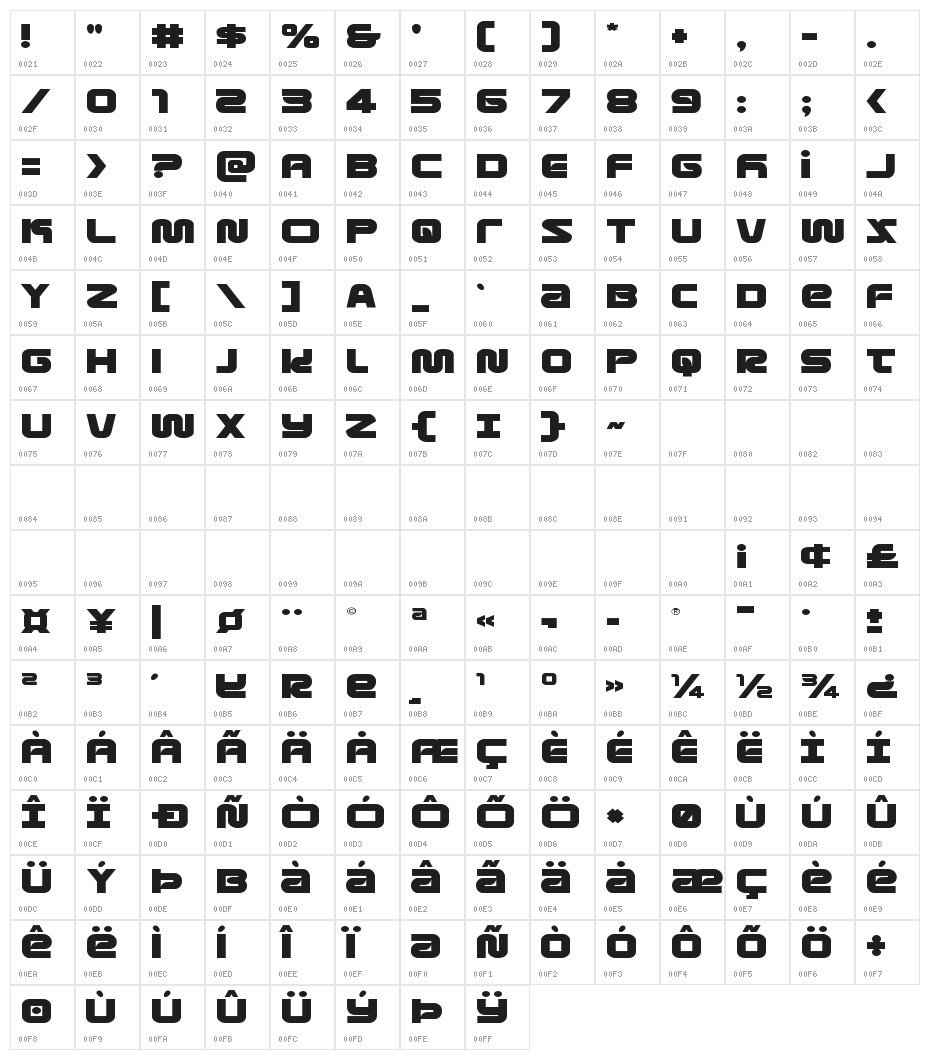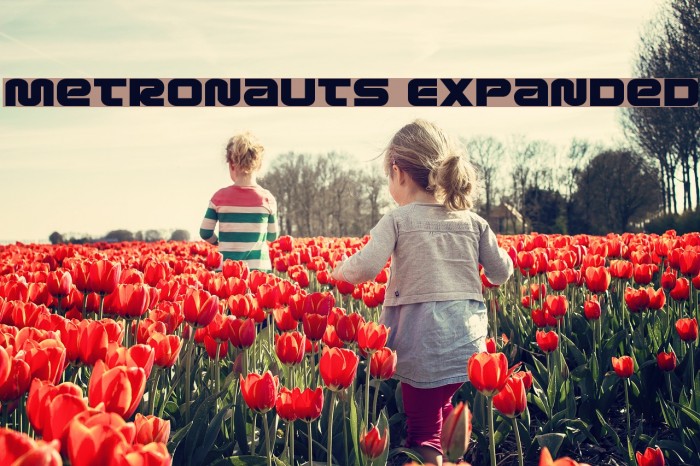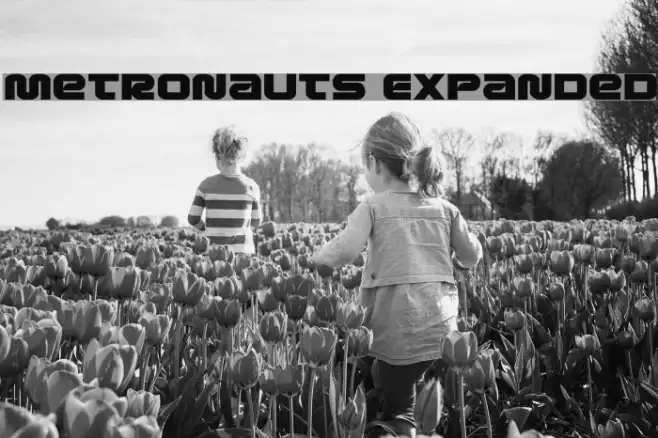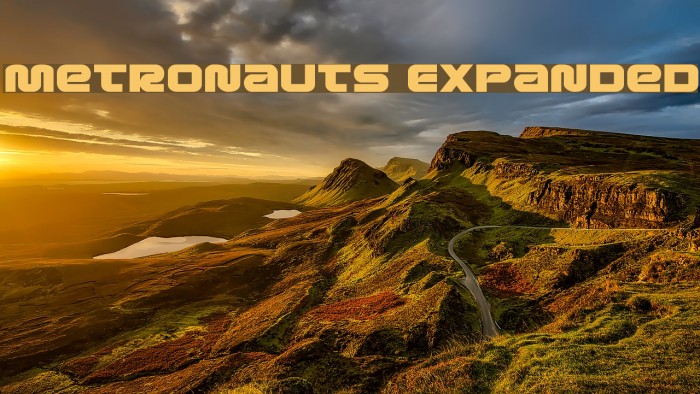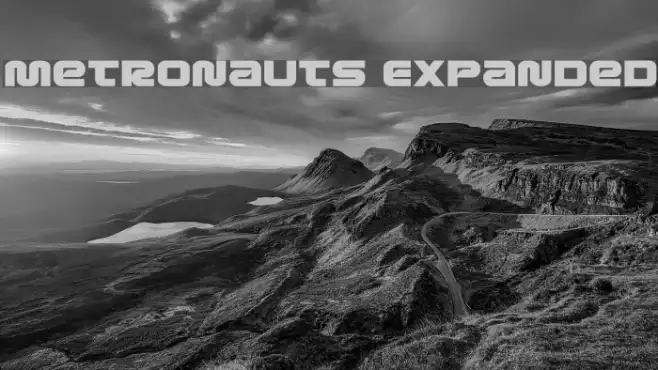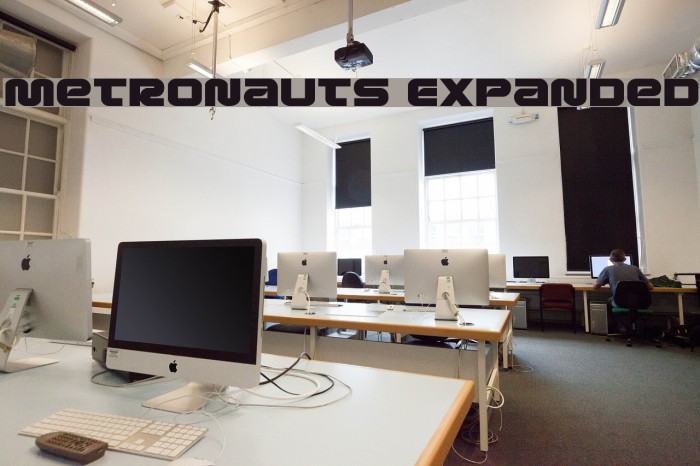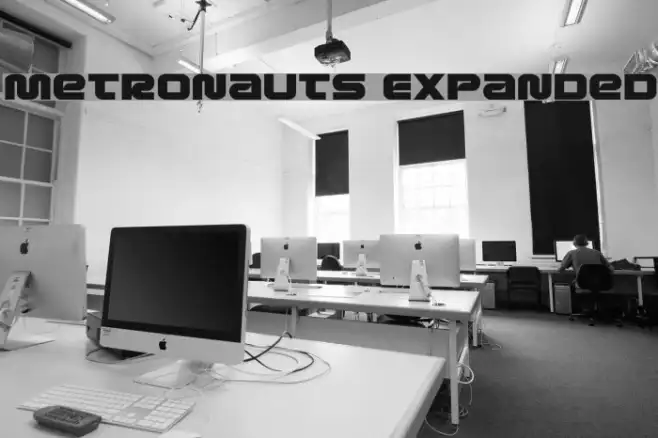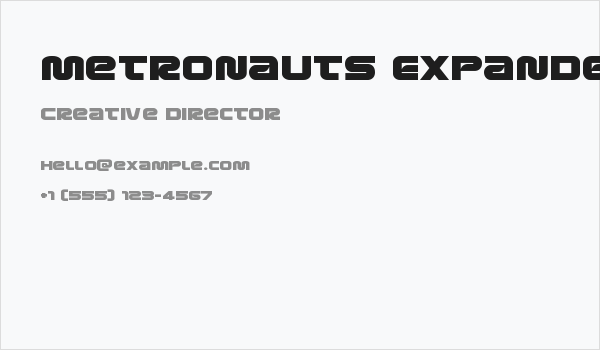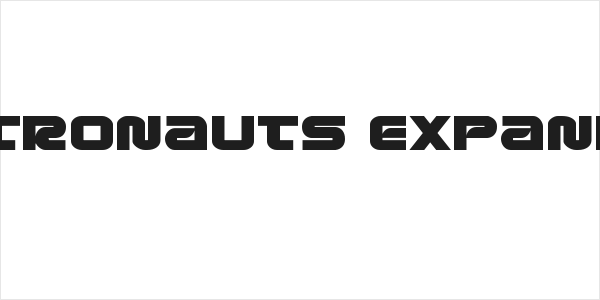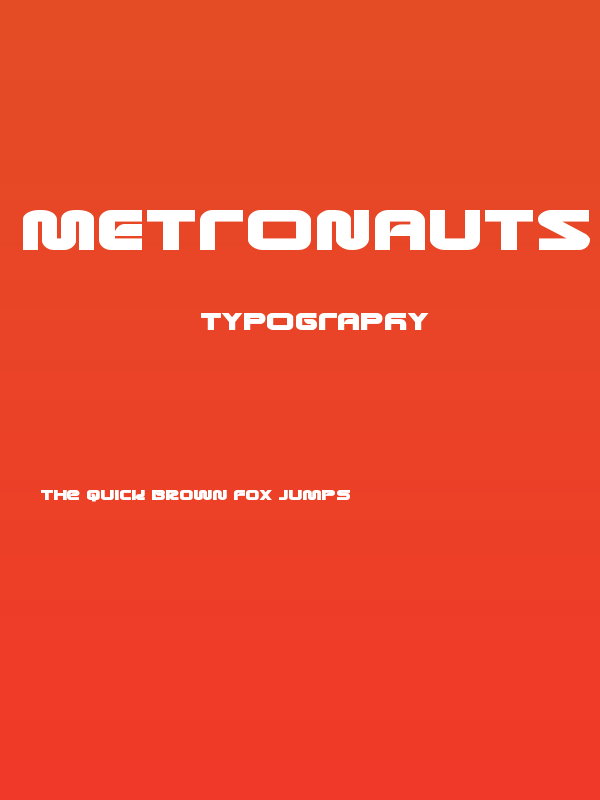
Metronauts Expanded Font
Metronauts Expanded Description
This font features a bold, futuristic design with expanded letterforms that convey a sense of modernity and innovation. The characters are geometric and structured, with a strong emphasis on horizontal and vertical lines that create a sense of stability and strength. The rounded edges soften the overall appearance, adding a touch of approachability to the otherwise robust design. The font includes a full set of uppercase and lowercase letters, numerals, and a variety of special characters, making it versatile for various design needs. Its unique style is ideal for projects that require a contemporary and forward-thinking aesthetic.
| Proposed Projects | Ideal for technology branding, sci-fi themed projects, video game titles, and modern advertising campaigns. |